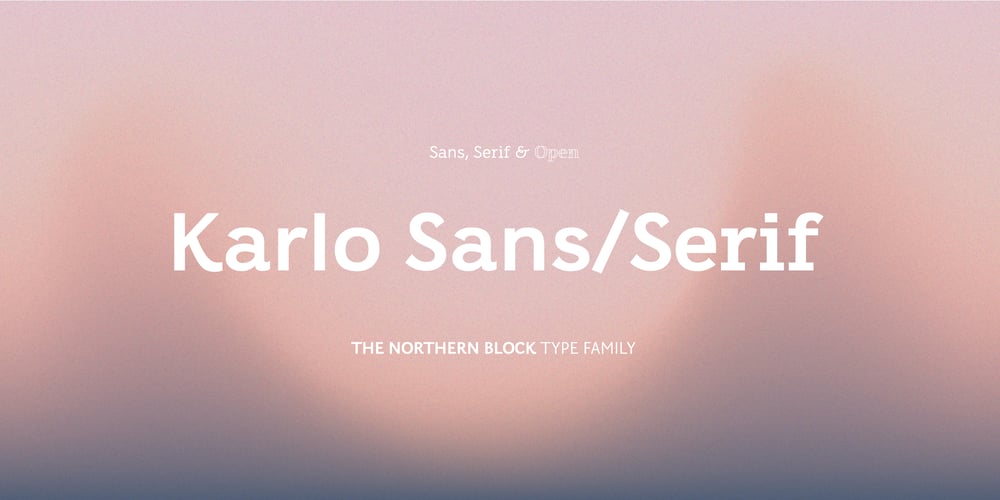
Karlo Font Family was designed by Sofie Beier and published by The Northern Block. Karlo contains 22 styles and family package options. Karlo is a super family of several branches, originating in the same lightweight skeleton. The lightweights are based on a pen of an even stroke-width. Inspired by the writings of calligrapher Edward Johnston, the family moves on in two directions in the heavier weights. Johnston demonstrated that the broad nib pen can produce different writing styles. Following this, one heavy weight has a humanistic low stroke contrast (KarloSerifBold and KarloSansBold), and another has a high stroke contrast of vertical axis with references to the 19th century jobbing typefaces (KarloOpen). The latter is inspired by Johnston’s demonstration of the broad nib pen, where he suggested fastening two pencils together. With each pencil representing an edge of the pen, it becomes more evident how the pen works in writing. The friendly informal look makes KarloSans and KarloSerif usable for both running text and for display sizes. KarloOpen, on the other hand, is solely designed for display purpose showing few words at a time. In Denmark, a guy named Karlo would typically be an old fellow with a slick hairstyle that makes an effort with his appearance. He is a handyman who can do a bit of this and that when needed. He is a happy go lucky kind of guy that takes one day at a time. To me, the typeface family has some of the same qualities.Check out Pyke which is a great pair for Karlo.